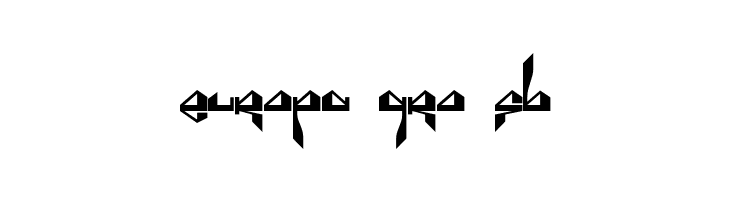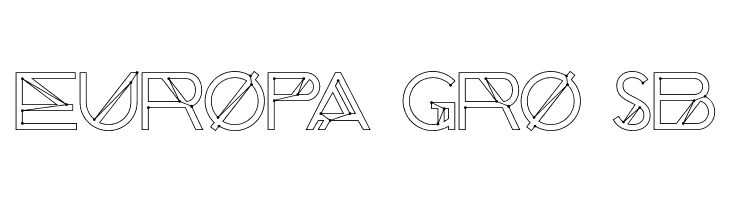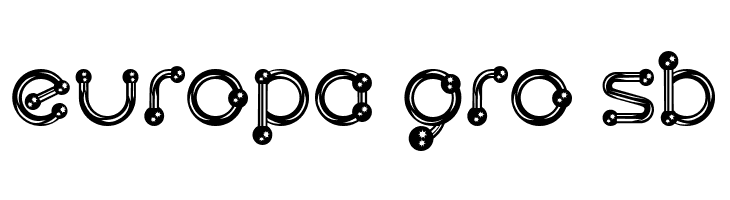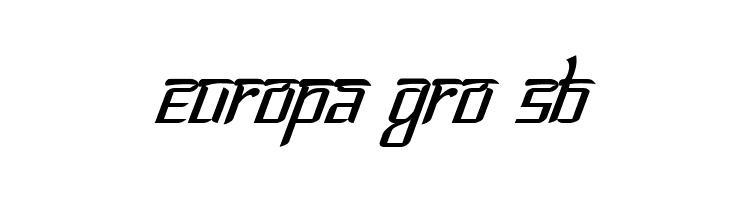
( Johannes Siemensmeyer - flickr.com/dergaudens )
( Khiro )
An abstract, geometric design using dots and lines for character representation.
( Maowcraft )
A bold, geometric font with spiked accents and a modern, digital aesthetic.
( Markus Schröppel - www.mschroeppel.de/ )
Pictographic, petroglyph-inspired font with hand-drawn symbols.
( MatreroG )
A geometric, angular font with a modern and futuristic style.
( Noem9 Studio - www.noem9studio.com )
A futuristic, geometric outline font with sharp angles and dynamic design.
( Otto Maurer Design - Otto Maurer - www.myfonts.com/foundry/Otto_Maurer/ )
A bold, decorative font with interconnected lines and circular nodes, offering a futuristic look.
( Rajendra Bitling - www.rbitling.com )
A bold, italicized font with angular, high-contrast strokes and tight spacing.
( Stefano Chies - www.stethesign.com )
A geometric font with characters formed from triangular shapes, offering a modern and artistic style.
( Sudar Moko )
A bold, artistic font blending tribal and Asian-inspired elements with sharp, angular strokes.